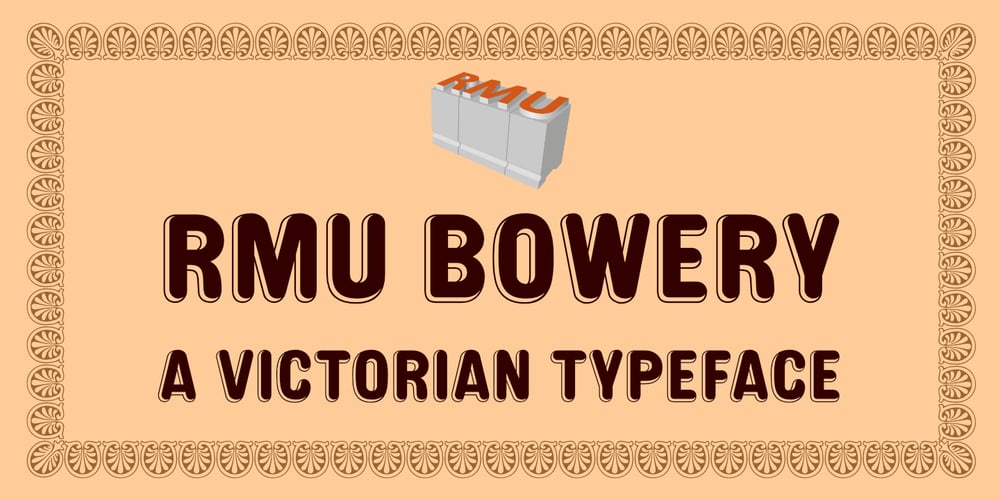
RMU Bowery Font Family was designed by Ralph M. Unger and published by RMU. RMU Bowery contains 1 styles and family package options. In the last decade of the 19th century, Bruce Type Founders, New York – among others – released this shaded typeface which they named Bowery. Carefully redrawn and digitized, RMU Bowery breathes fresh life into this great design.